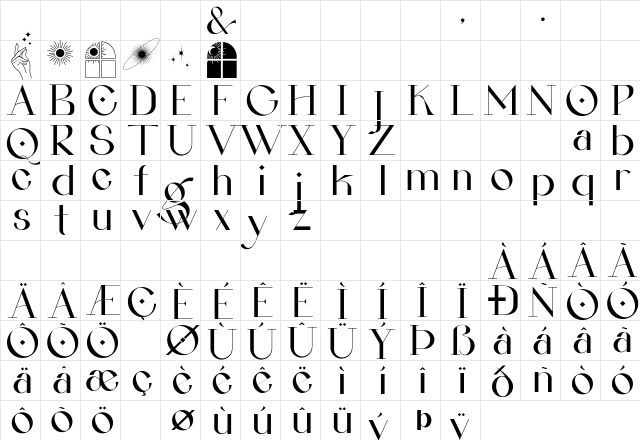
La Gagliane Personal Use Free Font
La Gagliane Personal Use
Design Context for La Gagliane
La Gagliane is a composed and adaptable typeface that performs quietly and consistently across a wide range of design contexts.